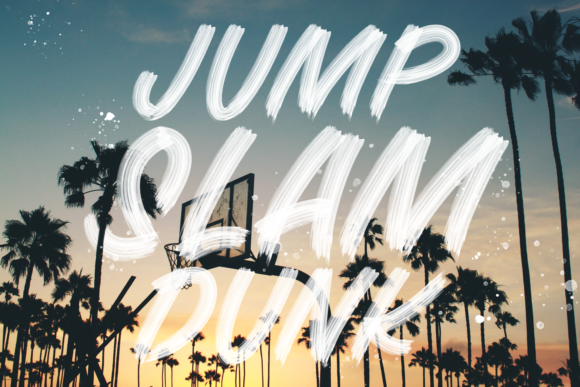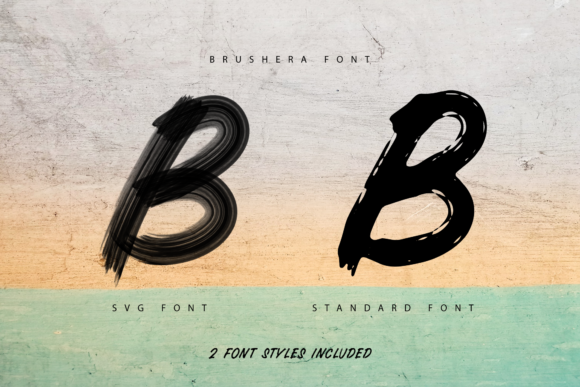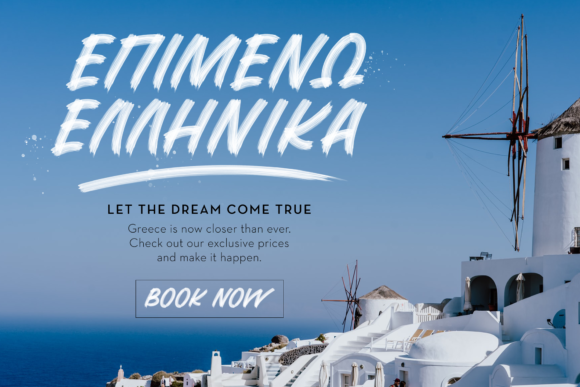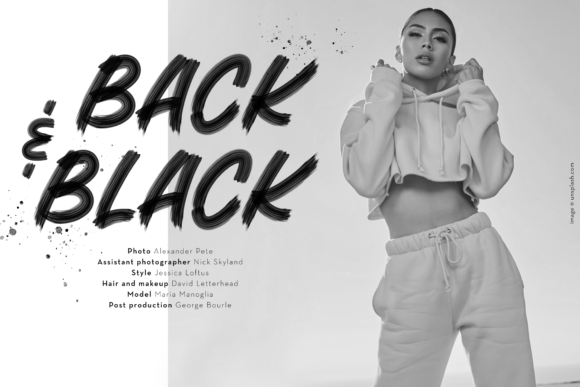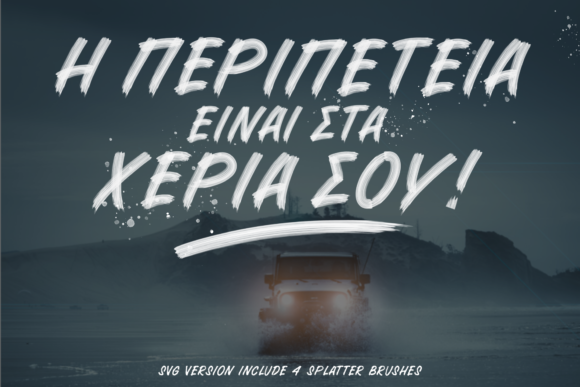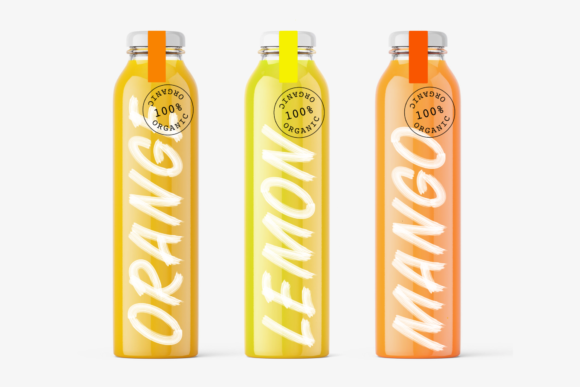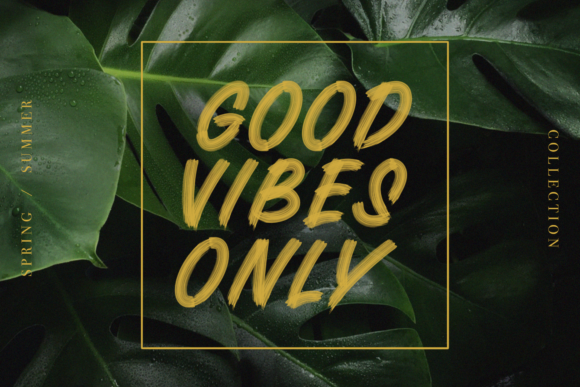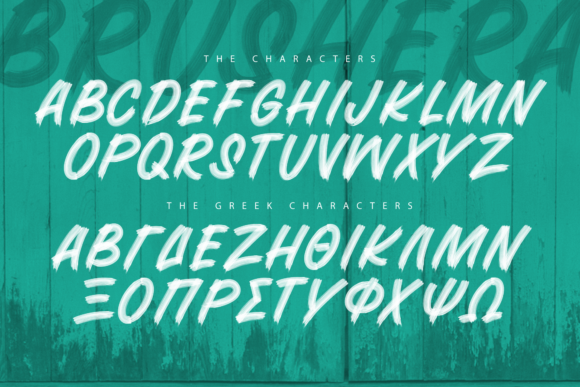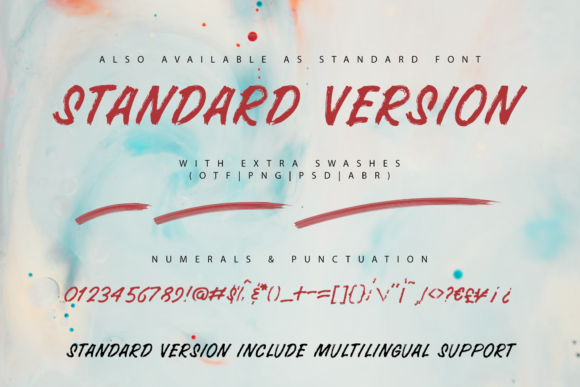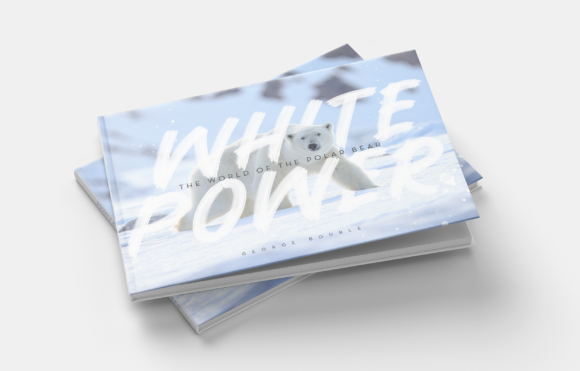
Brushera Font
About Brushera Font
Brushera is a stylish and contemporary script font that adds a touch of modernity and sweetness to any design. With its fluid brush strokes and elegant letterforms, Brushera is perfect for creating eye-catching and standout designs.
Whether you’re working on logos, branding materials, invitations, packaging, or any other project that requires a unique and expressive font, Brushera can elevate your design and give it a fresh and trendy look. The handwritten nature of the font adds a personal and organic touch, making it suitable for a wide range of applications.
The fluidity and varying stroke widths of Brushera give it a dynamic and energetic feel. It exudes a sense of creativity and individuality, making it well-suited for projects that aim to capture attention and leave a lasting impression.
To make the most of Brushera, pair it with complementary fonts or combine it with graphic elements to create visually appealing compositions. Experiment with different sizes, colors, and styles to achieve the desired effect and ensure your design stands out.
When working with Brushera, it’s important to consider legibility, especially for longer blocks of text. Use appropriate spacing and ensure that the font is readable at different sizes and on various mediums.